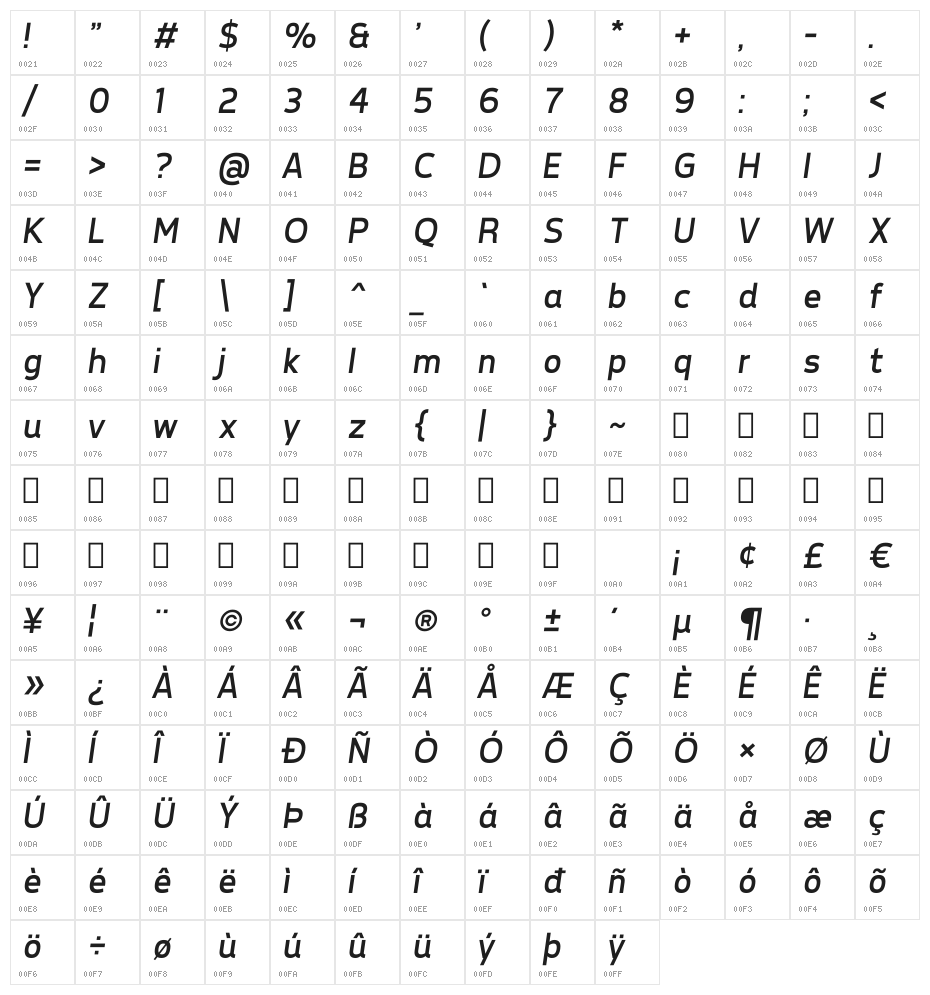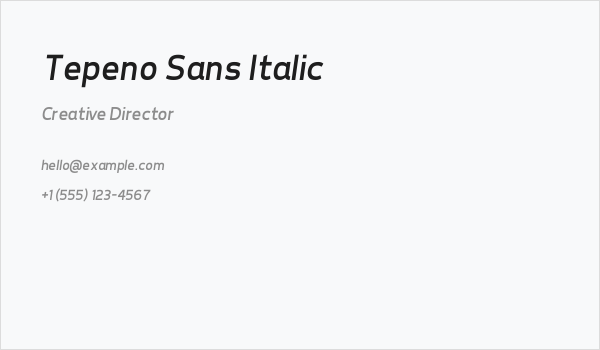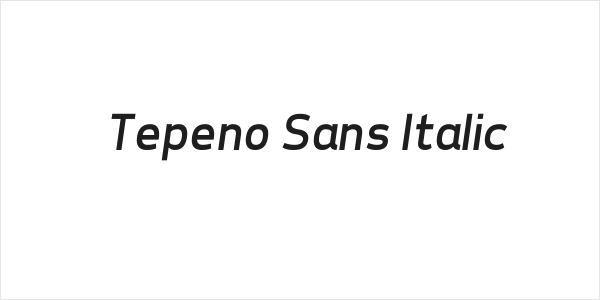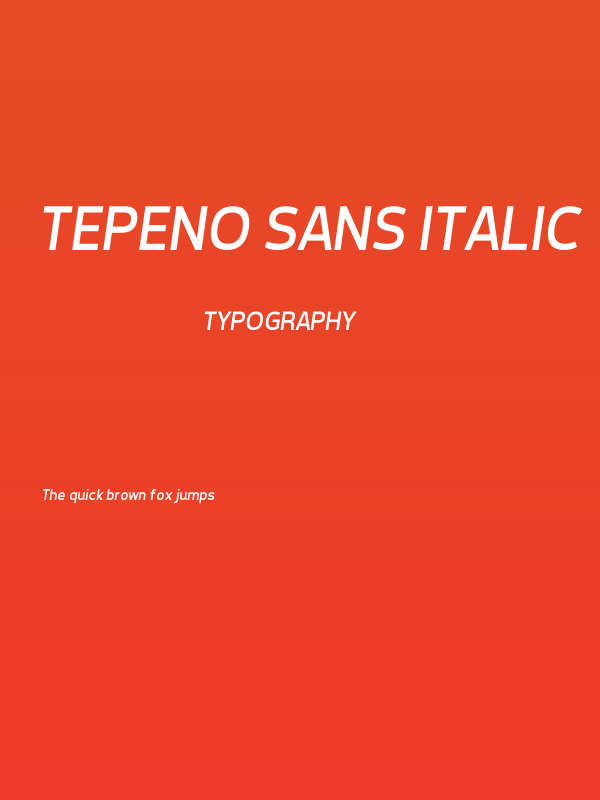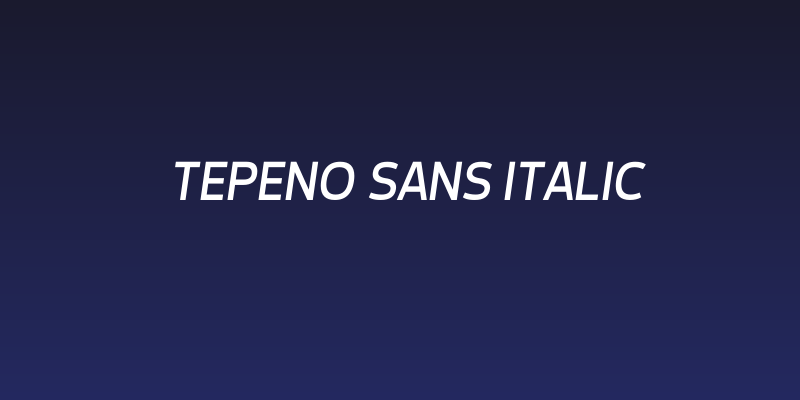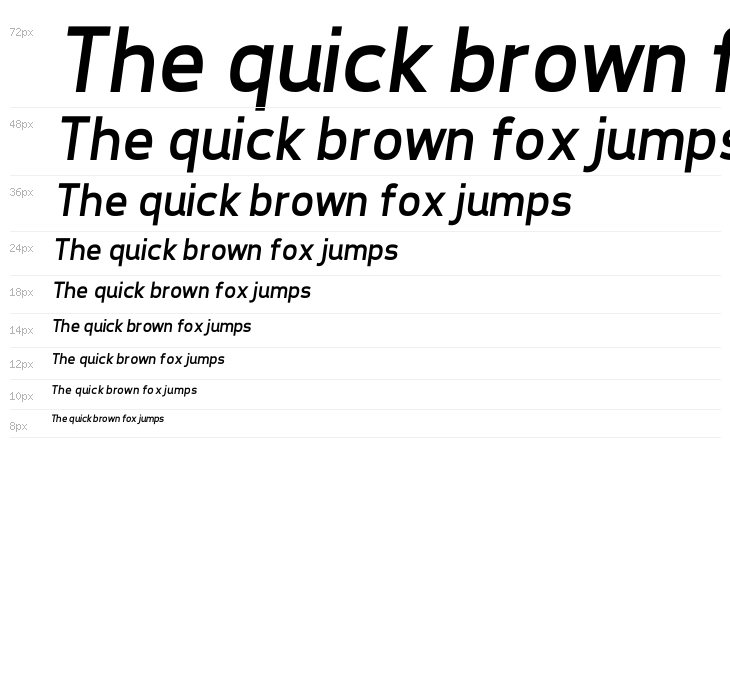
Tepeno Sans Italic Font
Tepeno Sans Italic Description
This typeface features a sleek, modern design with a slight slant, giving it an italicized appearance. The characters are clean and sans-serif, providing a contemporary and professional look. The uppercase and lowercase letters maintain a consistent style, with smooth curves and straight lines that enhance readability. Numbers and special characters are designed with the same attention to detail, ensuring uniformity across all elements. The font's overall aesthetic is minimalistic yet dynamic, making it suitable for various applications where clarity and style are essential.